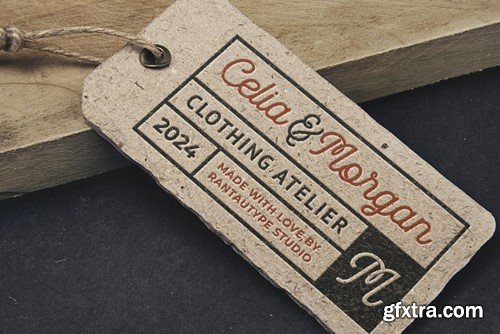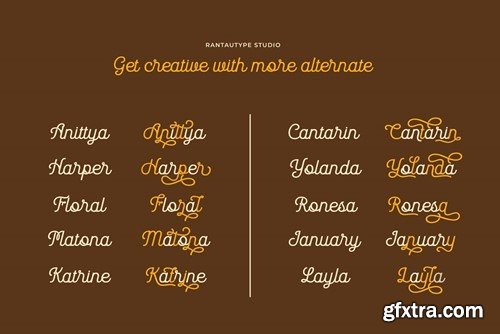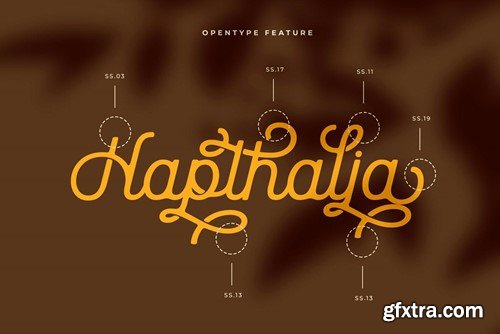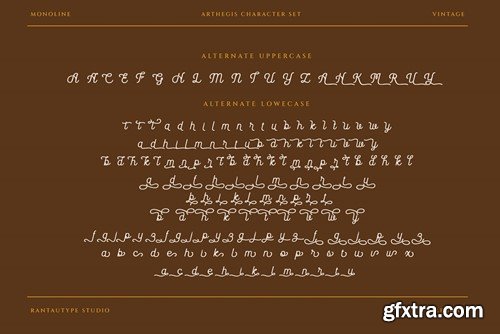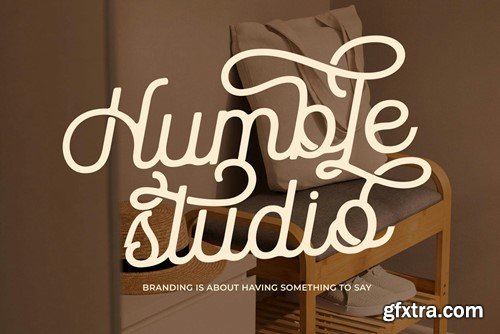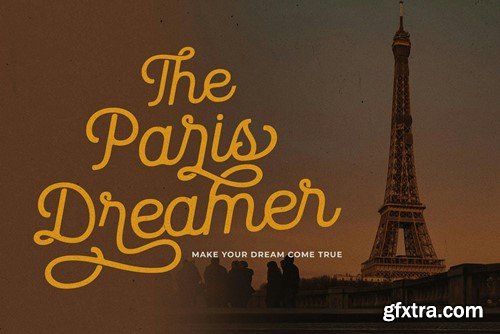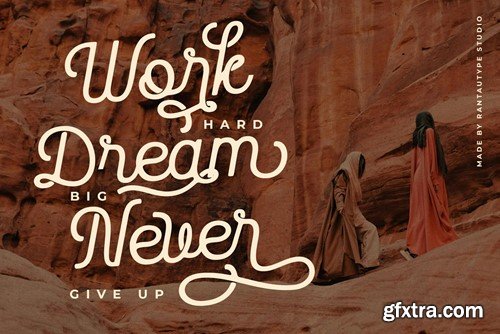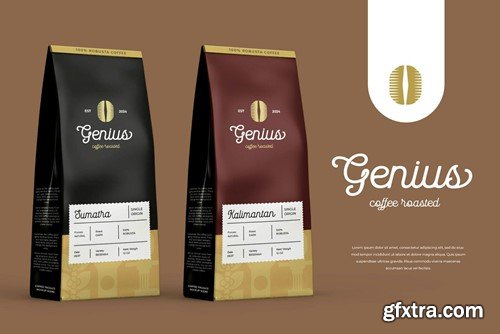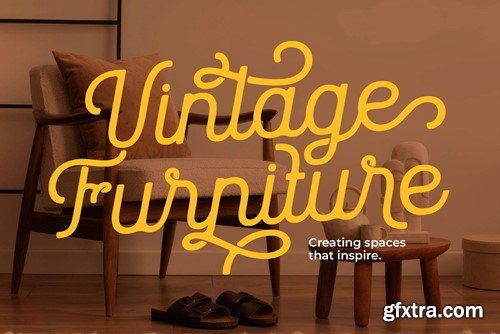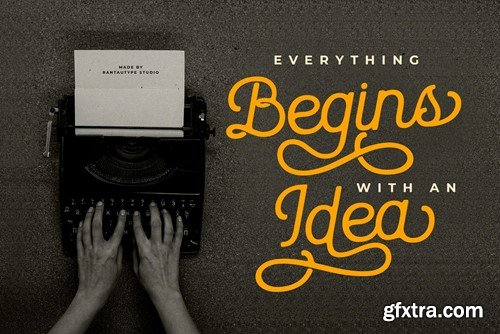
Arthegis Script Monoline Font
Arthegis is a handcrafted script monoline font created with love, inspired by vintage signage it looks modern, soft, retro and sophisticated. Come with 165+ beautiful alternate and ligature you can mix to create a more stunning display.
Arthegis is a perfectly choice for any creative endeavor, creating vintage, modern, retro, lifestyle design such as logos, title, cover, branding, business project, corporate project, display, poster, wedding, magazine, business card, packaging product, and more project with vintage taste.
• 165+ Beautiful Alternate and Ligature